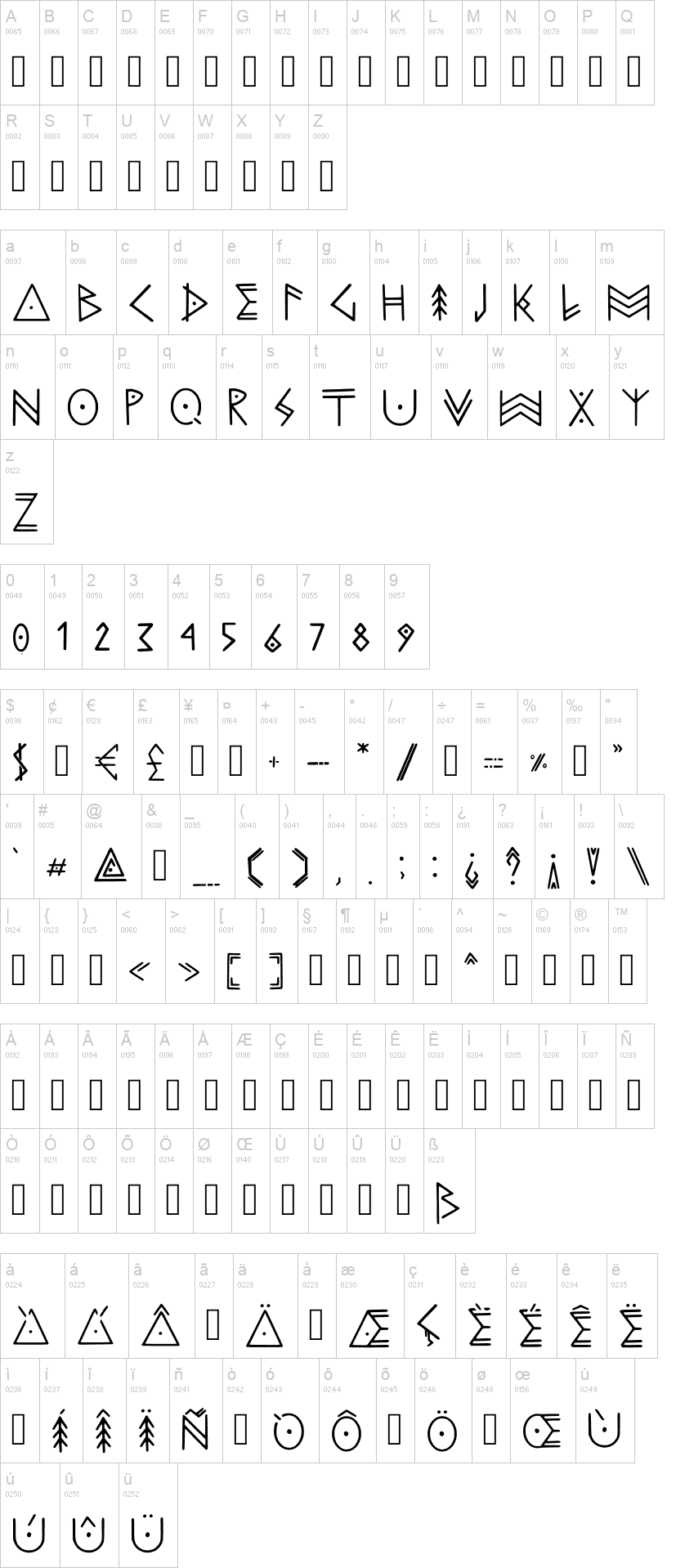
About the font:
Eari Font is a custom font inspired by symbols originating from various cultures: nordic, pagan, native tribes.
The font contains one size letters (lower case)